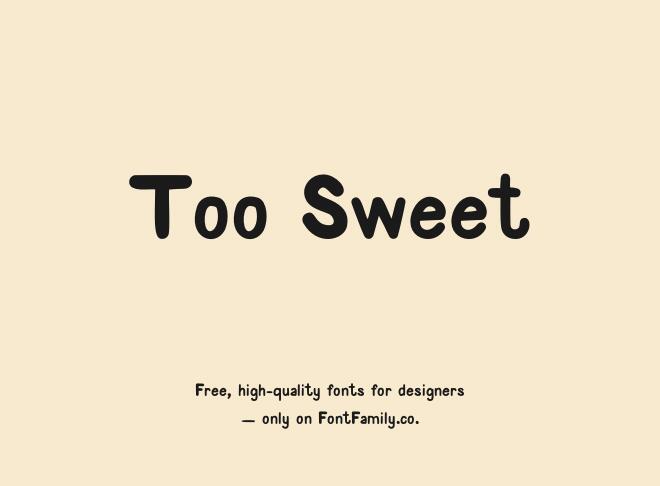
Too Sweet Font
Introducing the 'Too Sweet Font', a playful and modern handwritten typeface brought to you by Sweet Type Foundry. This font, with its rounded, soft edges, carries a friendly and approachable vibe that's perfect for logos, branding, children's book illustrations, or any design that needs a touch of sweetness. Its modern and playful style makes it comparable to fonts like 'Candy Round BTN', but with a unique twist. Its versatility allows it to blend in seamlessly with various designs, yet stand out when needed. The 'Too Sweet Font' is free for personal use and is an excellent choice for designers looking to add a dash of fun and modernity to their work, making any design irresistibly sweet.